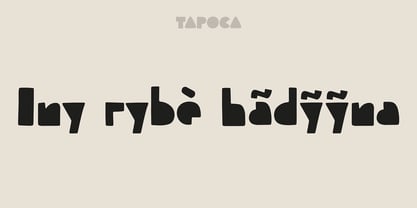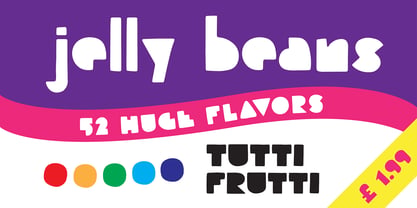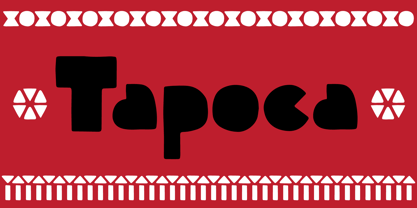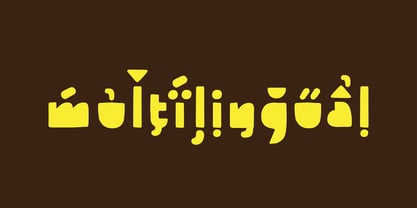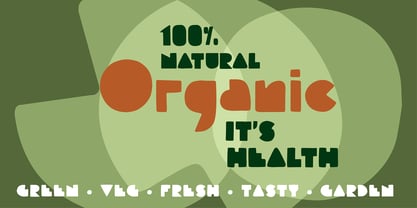
Tapoca
by Eldes Studio
The Tapoca Font Family was designed by Eldes Oliveira and published by Eldes Studio. Tapoca contains 1 styles.
Tapoca is an organic display typeface shaped by the idea of material transformed into form. Its design explores surface, rhythm, and volume, favoring continuity and gesture over rigid or mechanical construction. The name Tapoca is an original word, created for this typeface and inspired by phonetic and rhythmic qualities found in Indigenous languages of the Brazilian territory. Rather than referring to a literal meaning, the name operates as a sonic and cultural reference, reinforcing the typeface’s connection to language, orality, and form. The visual structure of Tapoca is informed by Indigenous graphic traditions and their approaches to pattern, repetition, and symbolic construction. These references are interpreted through a contemporary typographic process attentive to gesture, balance, and visual presence. The resulting letterforms are dense and expressive, built with full volumes and continuous curves that emphasize identity and texture. As a display typeface, Tapoca is both bold and versatile. It performs effectively in headlines, posters, book covers, and cultural or editorial projects, while also integrating well into branding systems that seek distinctiveness without excess. Its expressive flexibility allows it to adapt to different design contexts while maintaining a strong and recognizable voice. Beyond its formal qualities, Tapoca was developed with a strong focus on linguistic diversity. Its extended character set supports the transcription of Indigenous Brazilian languages, including specialized diacritics and characters used in linguistic and academic contexts. This makes Tapoca not only a visual tool, but also a functional and culturally informed typographic resource.